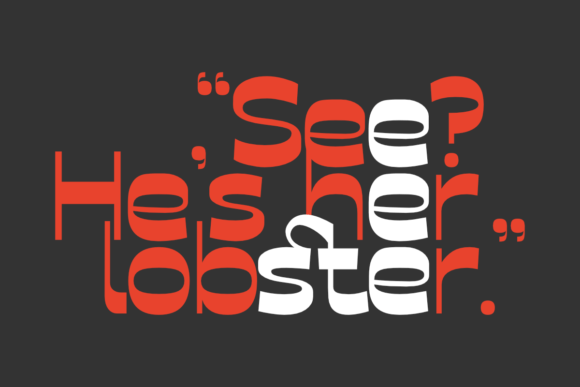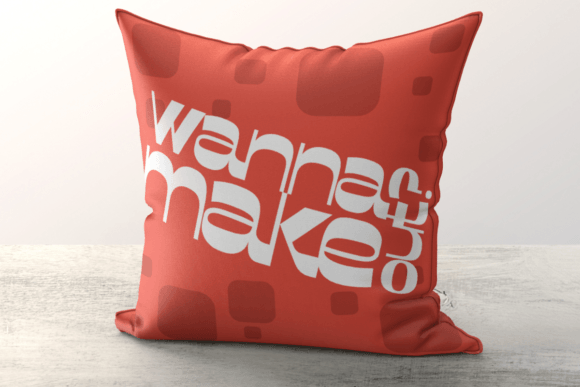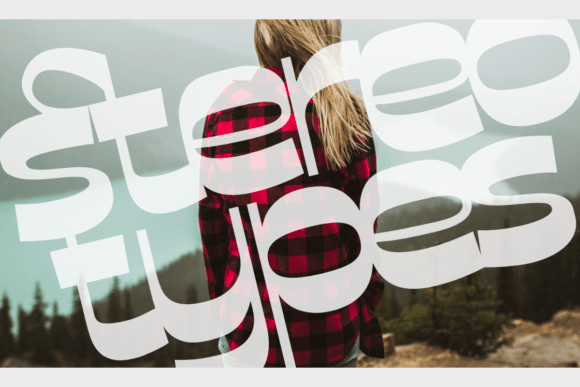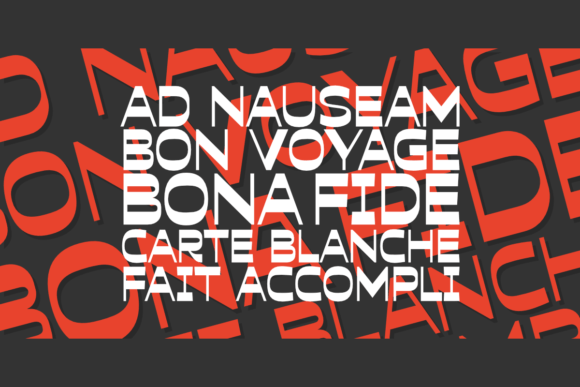
Fergana Font: A Bold and Noteworthy Typeface for Designers
In the world of typography, fonts play a crucial role in conveying messages and setting the tone for various design projects. For designers and crafters looking for a typeface that makes a statement, Fergana Font is an excellent choice. This square display sans-serif typeface boasts an inverted or reverse contrast, making it a powerful option for headings, posters, billboards, magazines, and advertisements.
What is Fergana Font?
Fergana Font is a square display sans-serif typeface designed to be loud, bold, and noticeable. Its unique feature is the use of high contrast, which sets it apart from other typefaces. This high contrast is achieved by using thick and thin lines, creating a visually striking effect that grabs attention. Fergana Font is perfect for designs that require a strong and impactful look, such as headings, titles, and captions.
Key Features of Fergana Font
- Square Display Sans-Serif: Fergana Font is a square display sans-serif typeface, characterized by its clean and geometric lines.
- Inverted or Reverse Contrast: The font features an inverted or reverse contrast, which creates a unique and eye-catching effect.
- High Contrast: Fergana Font uses a very high contrast to make it stand out, making it perfect for large sizes and bold designs.
- Versatile: The font is suitable for various design projects, from casual to hipster, and can be used for headings, posters, billboards, magazines, and advertisements.
Use Cases for Fergana Font
Fergana Font is a versatile typeface that can be used in various design projects, including:
- Headings and Titles: Use Fergana Font to create bold and eye-catching headings and titles for your designs.
- Posters and Billboards: The font’s high contrast and bold design make it perfect for posters and billboards that need to grab attention.
- Magazines and Advertisements: Fergana Font can add a touch of sophistication and style to magazine layouts and advertisements.
- Casual to Hipster Designs: The font’s unique and bold design makes it suitable for casual to hipster designs, such as logos, branding, and packaging.
Benefits of Using Fergana Font
Using Fergana Font in your designs offers several benefits, including:
- Attention-Grabbing: The font’s high contrast and bold design make it perfect for grabbing attention and making a statement.
- Versatility: Fergana Font can be used in various design projects, from casual to hipster, and can be paired with other fonts to create a unique look.
- Legibility: The font’s clean and geometric lines ensure legibility, even at large sizes.
- Uniqueness: Fergana Font’s inverted or reverse contrast sets it apart from other typefaces, making it a unique and distinctive choice.
Fergana Font is a powerful and bold typeface that can elevate your designs and make a statement. Its unique features, versatility, and attention-grabbing design make it an excellent choice for designers and crafters looking for a typeface that stands out. Whether you’re working on a casual or hipster design project, Fergana Font is sure to make a lasting impression.